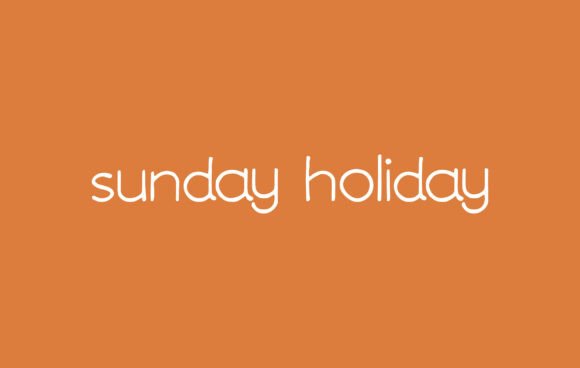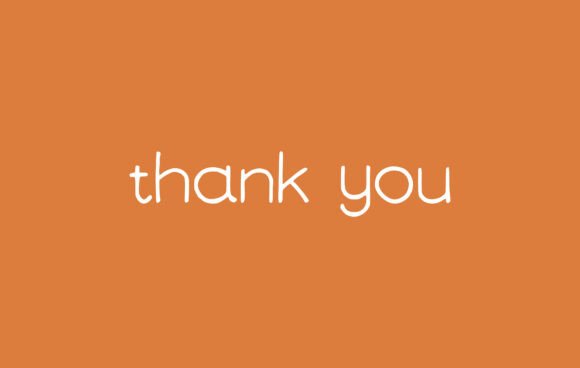
Introduction to Payton Font
Have you ever stared at a blank page, waiting for the perfect font to come to life and bring your creative vision to the forefront? That’s exactly what happens when you discover the Payton Font – a beautifully crafted, authentic handwritten font with a romantic touch. As a designer, you’re constantly on the lookout for that one special font that can elevate your project from good to great.
The Payton Font is more than just a design element – it’s a high-quality resource that can breathe new life into your creative project. Its legibility and versatility make it perfect for a wide range of applications, from magazine headlines to social media graphics, branding, and even wedding invitations. With its transparent background, you can easily overlay it on any image or background, giving you endless design possibilities.
Key Features of Payton Font
- High-quality design resource ideal for creative projects, offering a professional look and feel.
- Transparent background, allowing for seamless integration with various design elements and backgrounds.
- Payton Font comes in multiple styles and weights, providing versatility for various design applications.
- Designed with attention to detail, ensuring a clean and modern aesthetic suitable for a range of creative projects.
Honest Review: Payton Font
I recently had the chance to work with the Payton Font in a creative project, and I must say it’s a great addition to any designer’s toolkit. As a design resource, it’s incredibly versatile and can be used in a variety of contexts, from digital to print.
One of the standout features of Payton Font is its high quality and sleek design. The font is clean, modern, and features a transparent background, making it easy to integrate into any design.
Here are some of the things that work well with Payton Font:
- ✨ Versatile and adaptable to various design contexts
- ✨ High quality and modern design
- ✨ Transparent background for easy integration
However, there are a few limitations to be aware of:
- ⚠️ Limited font styles and weights available (though still a great starting point)
- ⚠️ May not be as customizable as some other fonts
Overall, I’m impressed with Payton Font and would definitely recommend it to other designers. Its high quality and versatility make it a great choice for any creative project, and the free download is a bonus.
Common Use Cases for Payton Font
The Payton Font is perfect for a variety of design projects, including:
– Branding and logo design
– Web design and development
– Print design and publishing
– Digital marketing and advertising